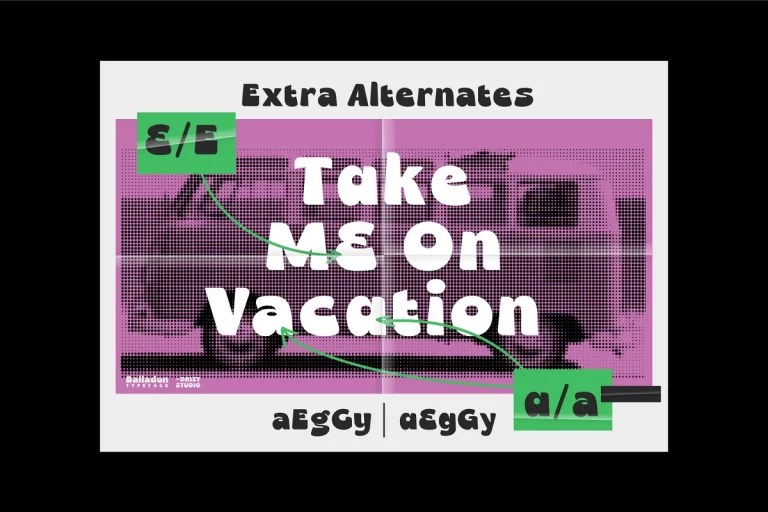
Balladon – Bold Display Font
Balladon Bold Playful Display font is a special font for unique playful theme. Offering all the basic styles you will need for a successful project.
Balladon Standard & Balladon Stencil Features:
- Uppercase & Lowercase
- Numeral & Punctuation
- Multilingual
- Ligatures